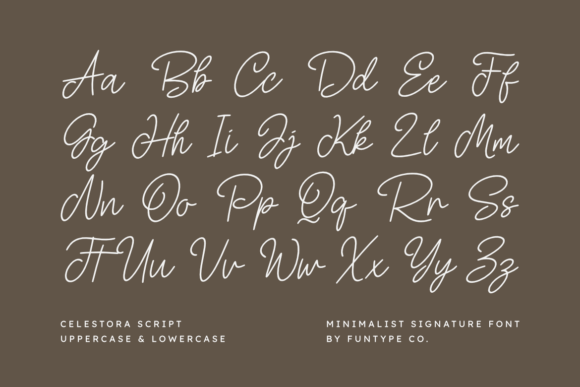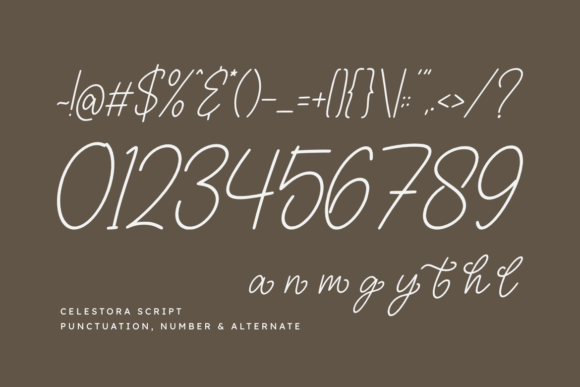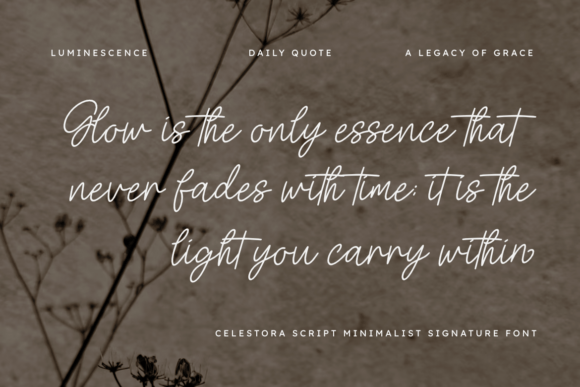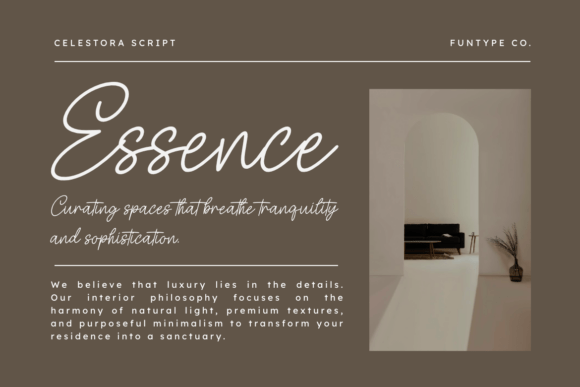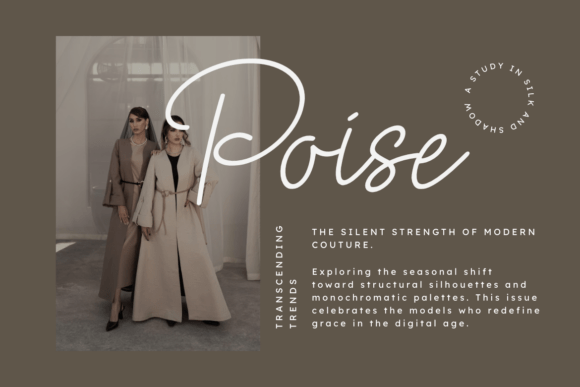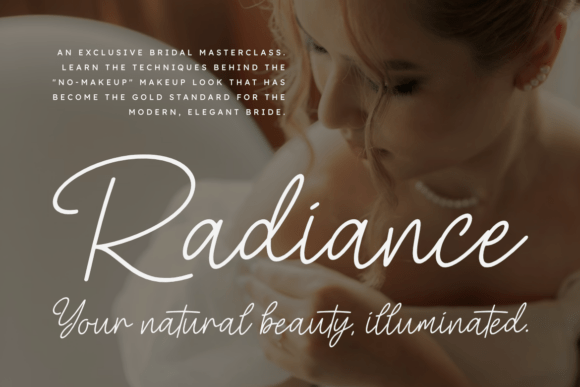
Find Your Signature Style with Celestora Script Font
There’s nothing quite like the thrill of discovering a new font that speaks to your creative soul. Imagine you’re browsing through a typography market, and suddenly, you stumble upon a script font that exudes elegance and sophistication. You can almost envision it on a beautiful wedding invitation, or a stylish branding logo that screams “you”. This is exactly what the Celestora Script Font is all about – a minimalist signature font designed to elevate your typographic creations and leave a lasting impression.
As a designer, you’re always on the lookout for fonts that can help you convey a message with style and finesse. The Celestora Script Font is an ideal choice for wedding invites, photography watermarks, stylish branding, and contemporary lifestyle emblems. Its refined architecture and organic cadence make it a valuable addition to any designer’s toolkit.
Celestora Script Font Key Features
- Font Family: Celestora Script
- Unique Characteristics: Elegant, cursive script with a touch of luxury, ideal for invitations, wedding stationery, and other high-end designs
Celestora Script Font Review
As a designer, I’ve had the chance to work with Celestora Script Font, and here’s my honest take on it.
- Celestora Script Font has a beautiful, elegant feel to it. It’s perfect for creating a sophisticated and high-end look.
- The font is highly versatile and can be used for a wide range of projects, from invitations to branding materials.
- The script font is highly customizable, allowing designers to fine-tune the look to fit their specific needs.
- The font is also highly legible, making it easy to read and understand, even in smaller font sizes.
Any limitations ⚠️
- The font can be quite dramatic, which may not be suitable for all projects or audiences.
- The script font may not be the best choice for projects that require a lot of technical or scientific information.
- The font may not be available in as many languages as some other fonts.
Overall, I think Celestora Script Font is a great choice for designers who want to add a touch of elegance and sophistication to their projects. While it may have some limitations, it’s a versatile and highly customizable font that can be used in a wide range of contexts.
Tips for Getting the Most Out of Celestora Script Font
Use Celestora Script Font for creating elegant and sophisticated designs. Experiment with different font sizes and colors to achieve the desired look.
Celestora Script Font is commonly used for:
– Luxury brand logos and packaging
– High-end event graphics and signage
– Elegant web headers and footers
Alternatives to Celestora Script Font for Designers
Great Vibes is a modern calligraphy font that features elegant, flowing lines. It is suitable for use in wedding invitations, greeting cards, and other formal designs. Great Vibes is similar to Celestora Script Font in its flowing and elegant nature, but it has a more modern feel and is often used for more contemporary designs.
Carolyna Pro is a luxurious and elegant script font that is perfect for high-end branding, advertising, and packaging designs. It features intricate details and refined lines, making it suitable for use in luxury and fashion designs. Carolyna Pro is more refined and elegant than Celestora Script Font, but both fonts share a similar sense of sophistication and luxury.
Alex Brush is a beautiful and elegant script font that features a unique blend of modern and classic elements. It is suitable for use in wedding invitations, stationery, and other formal designs. Alex Brush is more delicate and refined than Celestora Script Font, and is often used for more feminine and elegant designs.
Dancing Script is a playful and elegant script font that features flowing lines and a sense of movement. It is suitable for use in wedding invitations, party invitations, and other fun and celebratory designs. Dancing Script is more playful and energetic than Celestora Script Font, and is often used for more casual and fun designs.
Q: Does Celestora Script Font support Unicode characters?
Yes, Celestora Script Font supports a wide range of Unicode characters, including Latin, Cyrillic, and Greek alphabets. This makes it suitable for designing multilingual projects and documents.